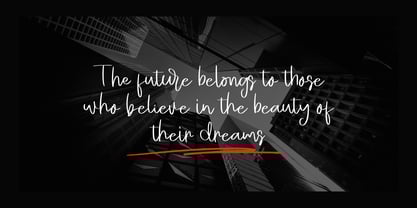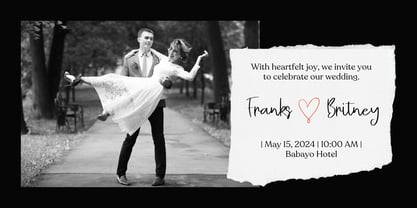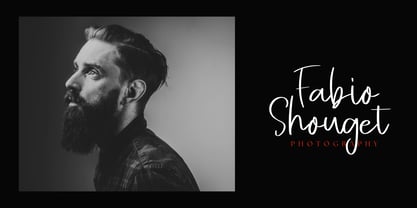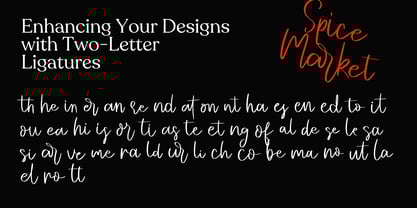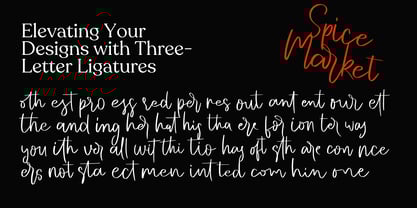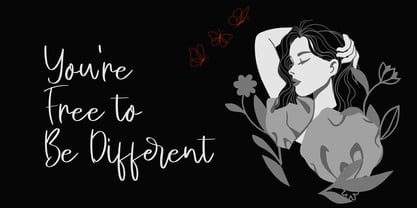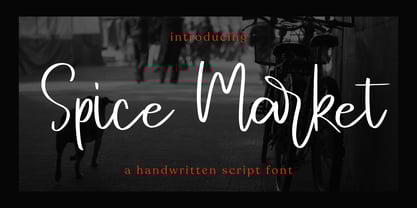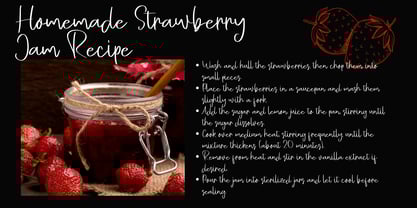
Spice Market
The Spice Market Font Family was designed by Dian Haniffan Hadi and published by Beary. Spice Market contains 1 styles. More about this family
Introducing Spice Market
Step into the vibrant world of Spice Market, a beautifully crafted font that exudes warmth, creativity, and charm.
With its flowing strokes and over 100 unique ligatures, this font is designed to bring life and personality to every word.
Spice Market is not just versatile but also inclusive, offering multilingual support to cater to a global audience.
Its balance of elegance and playfulness makes it perfect for branding, wedding invitations, product packaging, and social media designs.
Inspired by the lively colors and rich textures of traditional spice markets, this font adds a touch of exotic sophistication to your projects.
Whether you're creating a logo, a headline, or an artistic masterpiece, Spice Market guarantees to leave a lasting impression.